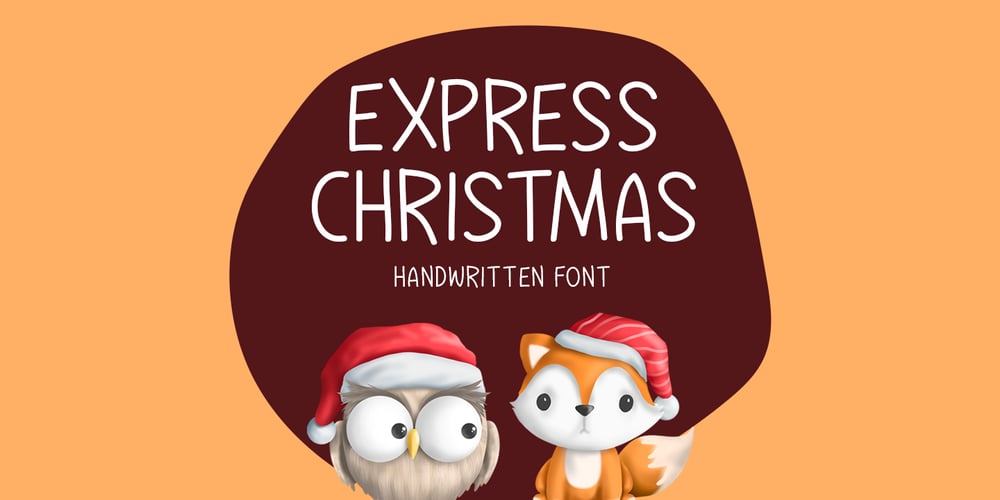
Express Christmas
Express Christmas font
Express Christmas Font Family was designed by Md Shohail Bhuian and published by Seemly Fonts. Express Christmas contains 1 styles and family package options. Express Christmas is a simple lettered handwritten font. It can easily be matched to an incredibly large set of projects, so add it to your creative ideas and notice how it makes them stand out!